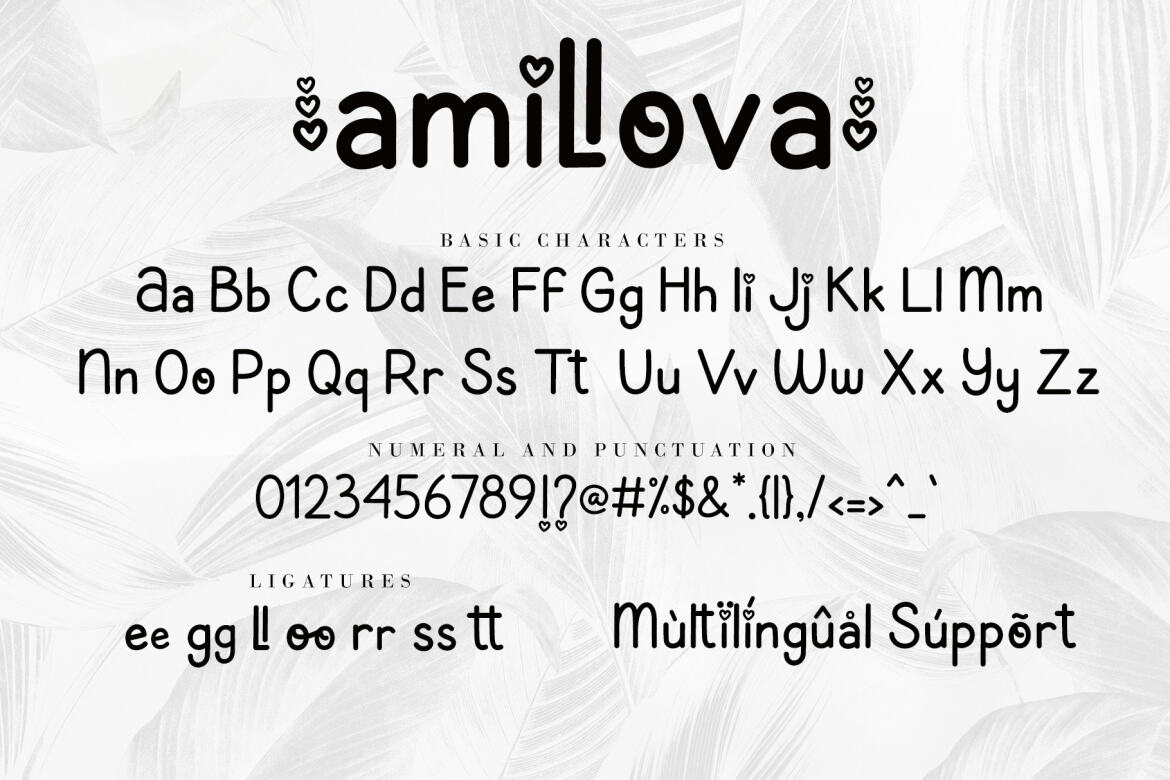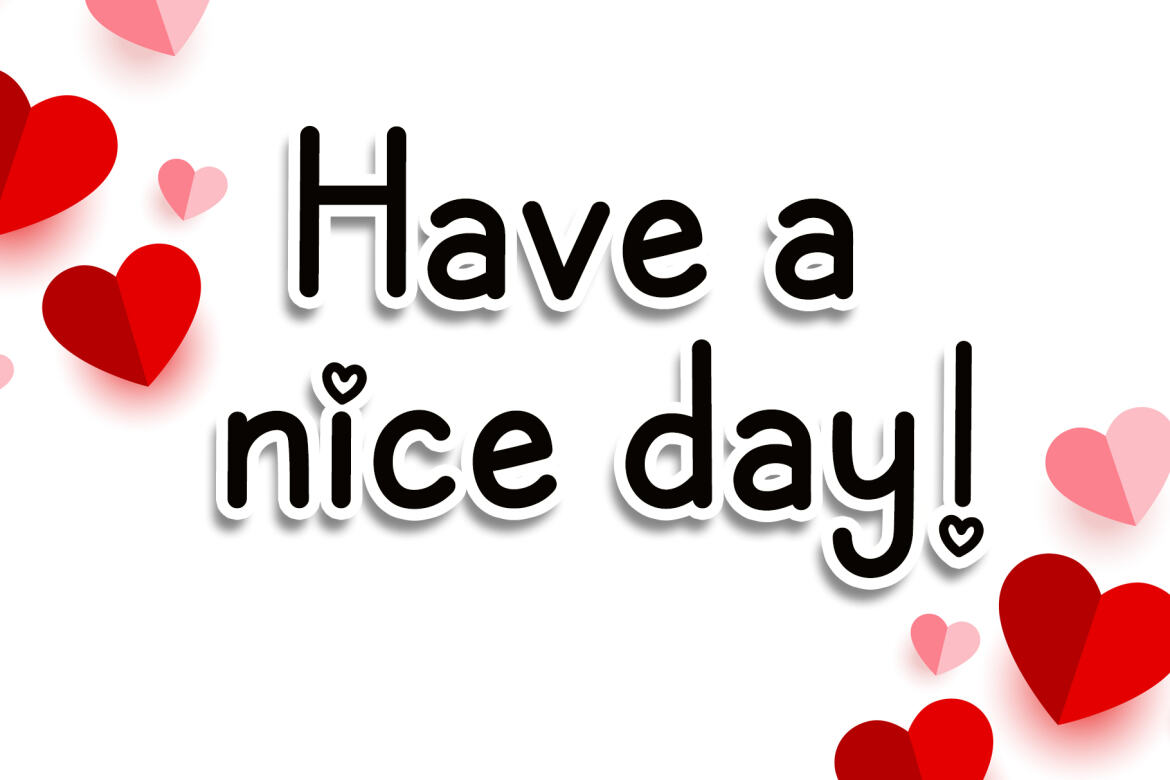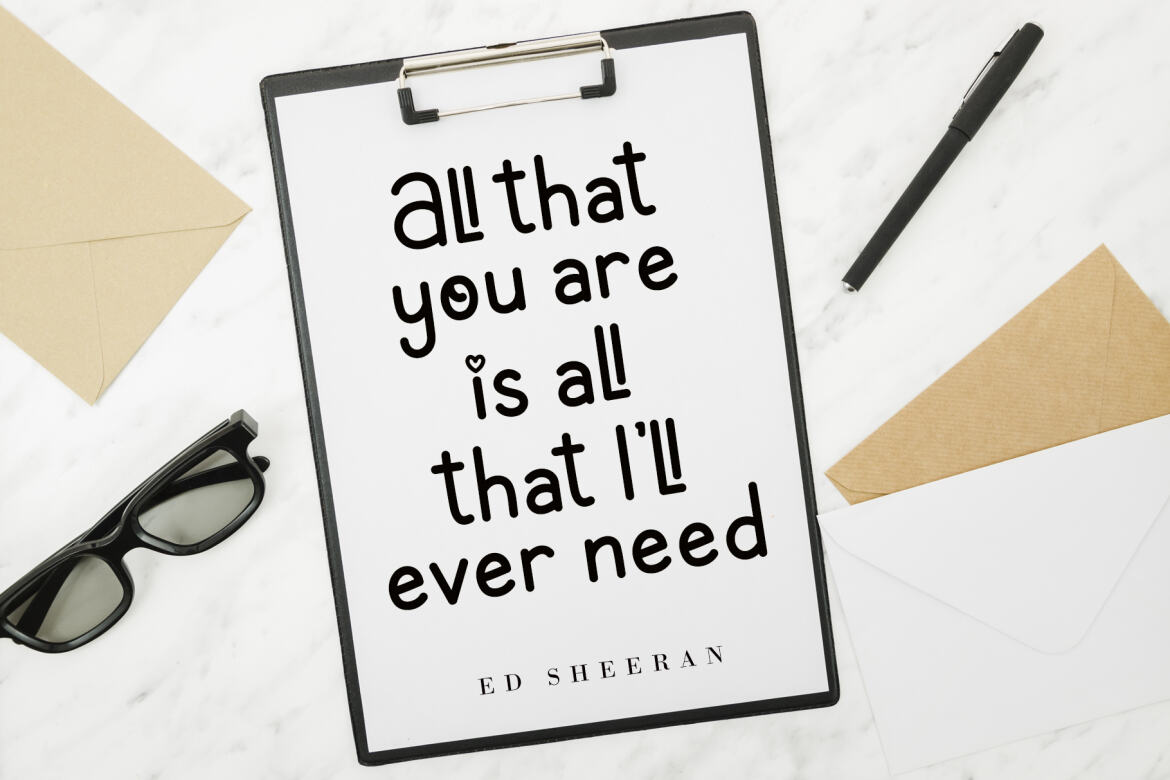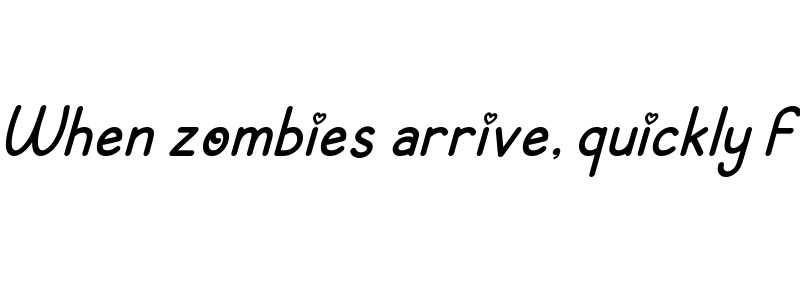
Amillova FREE Font
Amillova is a romantic and sweet display font. It is ideal for Valentine-themed greeting cards or any other design that may need a lovely, personalized touch! This font is PUA encoded which means you can access all of the glyphs and swashes with ease!
• ligatures, swashes & titiling
• support multilingual; ä ö ü ä ö ü ß ¿ ¡